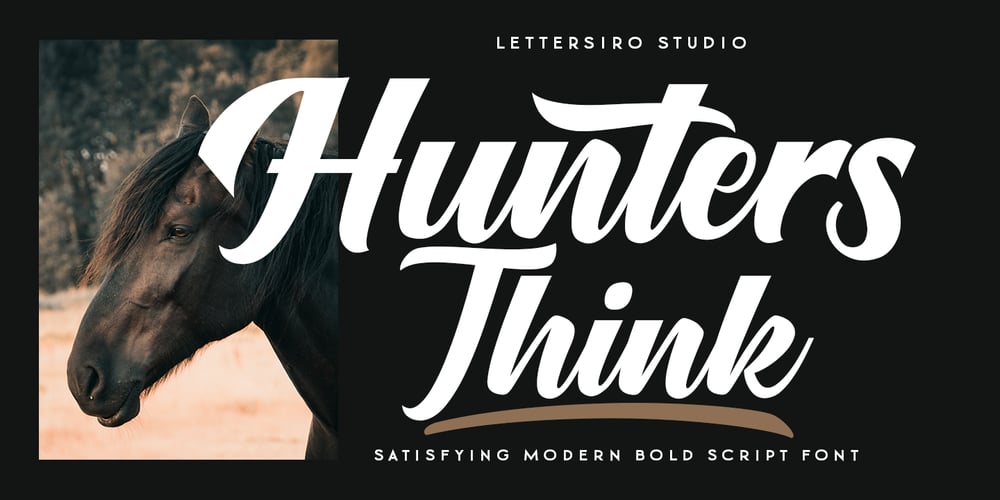
Hunters Think Font Family was designed by Muhammad Sirojuddin and published by Lettersiro. Hunters Think contains 1 styles and family package options. Hunters Think is modern bold script font. Made carefully to get the best curves and unique form that never exist before. Hunters Think is Suitable for any graphic designs such as branding materials, t-shirt, print, business cards, logo, poster, t-shirt, photography, quotes .etc.this font special for big company only